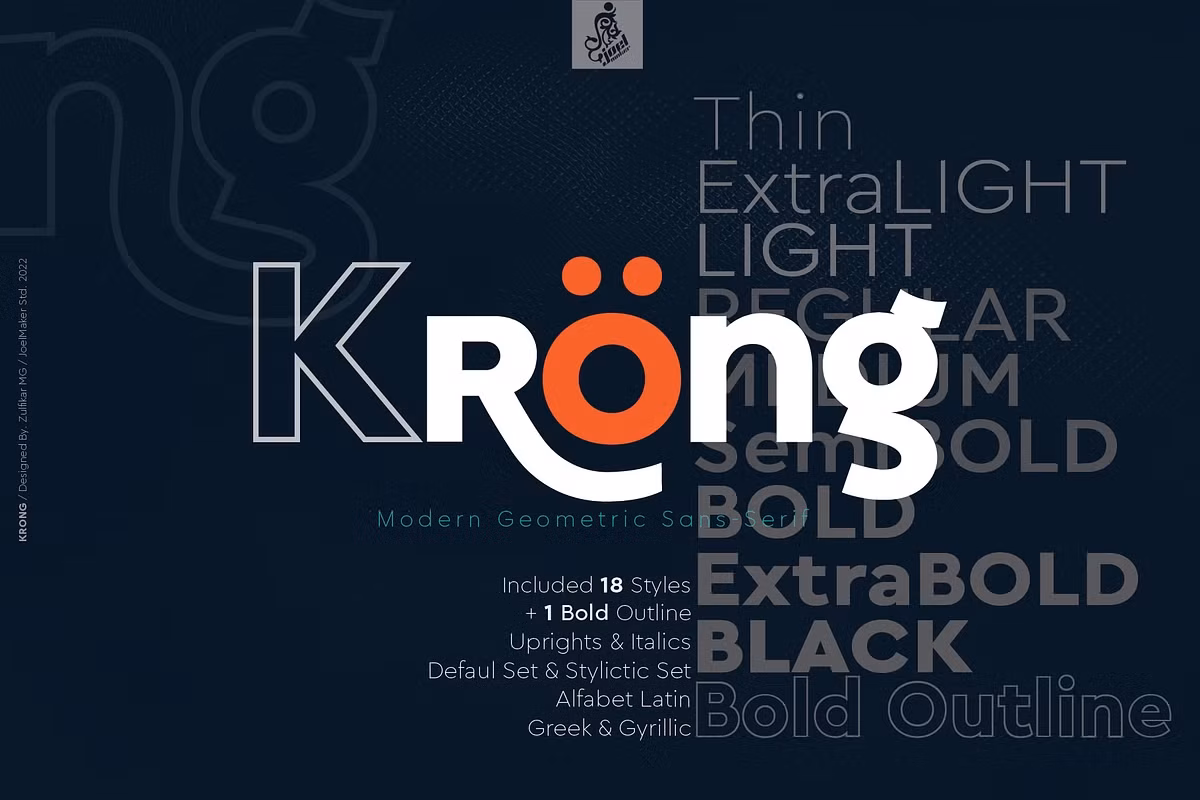
Krong Sans Serif Free Download
Krong Sans Serif Font Free Download is a clean, modern typeface with a minimalist design, making it ideal for professional, contemporary projects. With its sleek lines and geometric structure, Krong is perfect for branding, logos, editorial designs, website headers, and any project that demands clarity and modern sophistication.
Krong Sans Serif Font Free Download offers excellent legibility and style, making it versatile enough for both display and body text. Whether you’re creating a bold logo, designing a modern website, or developing clear and readable content, Krong brings elegance and simplicity to your design. Download it today and enhance your next project with the sleek style of Krong!